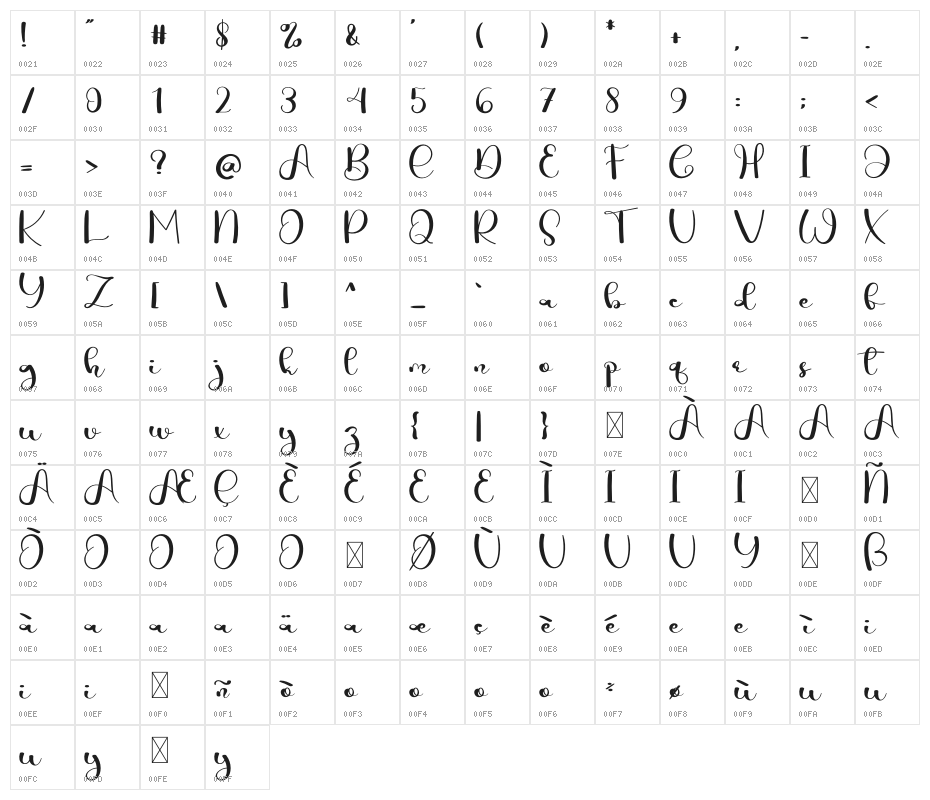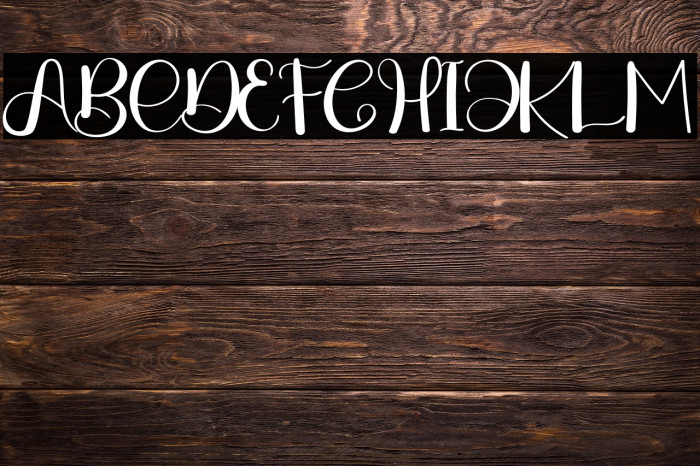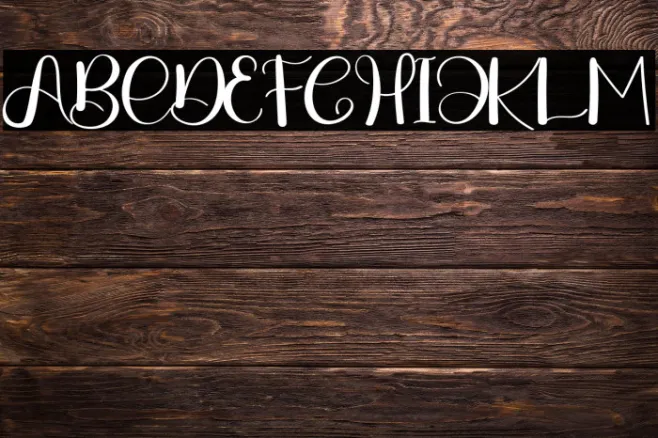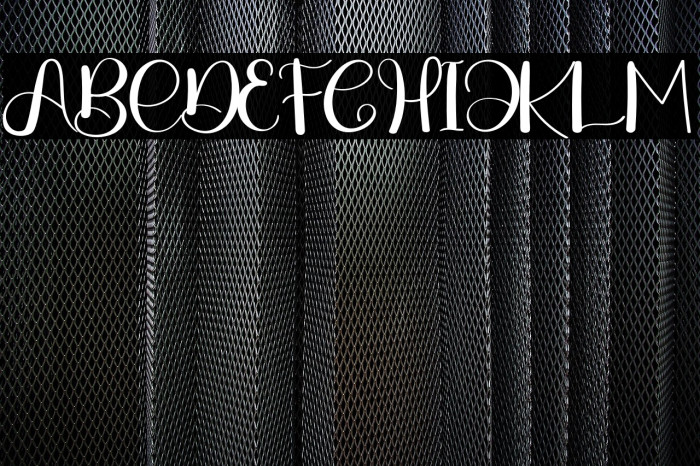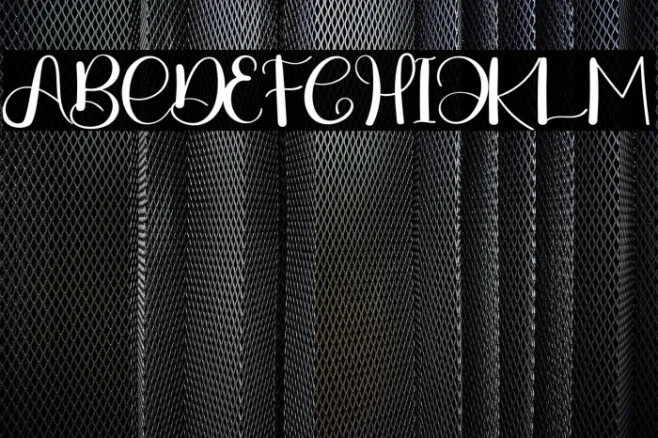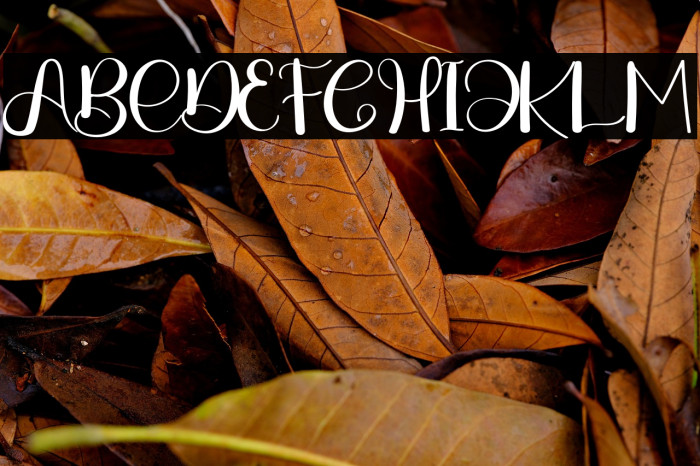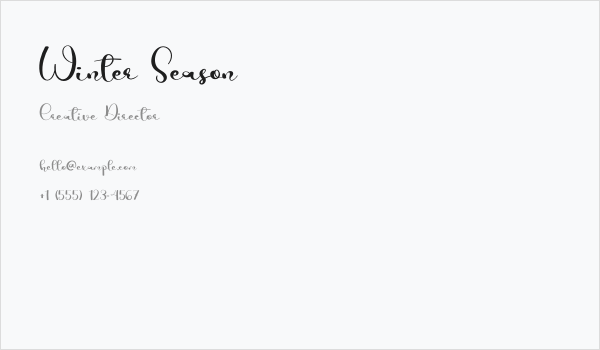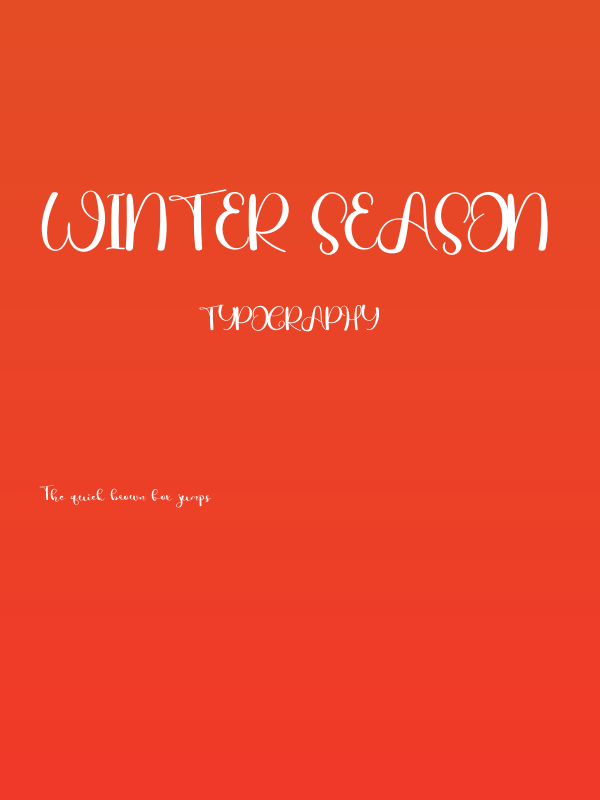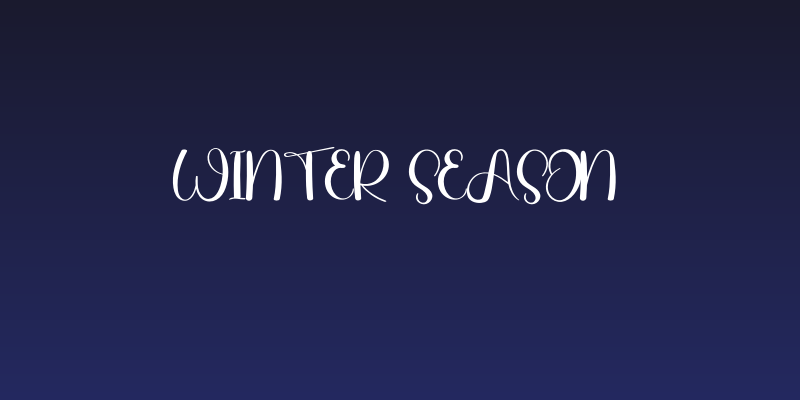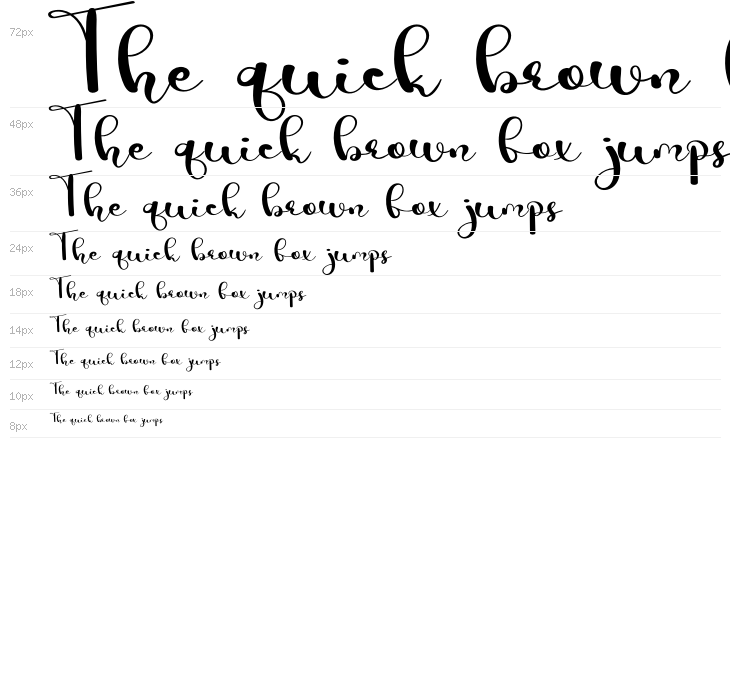
Winter Season Font
This font features a playful and whimsical script style with a modern twist. The uppercase letters are characterized by elegant loops and swirls, giving them a dynamic and flowing appearance. The lowercase letters maintain a consistent style, with smooth curves and a slightly informal touch. The numerals are bold and clear, ensuring readability while maintaining the font's overall decorative nature. Special characters are creatively designed, adding to the font's unique charm. This font is perfect for projects that require a touch of elegance and personality, such as invitations, greeting cards, and branding materials.
A whimsical and elegant script font with playful loops and swirls.
- Font: Winter Season
- Proposed Projects: Ideal for invitations, greeting cards, branding, and decorative projects.
- Category: Script
- Use Case: Headlines, Logos, Decorative text